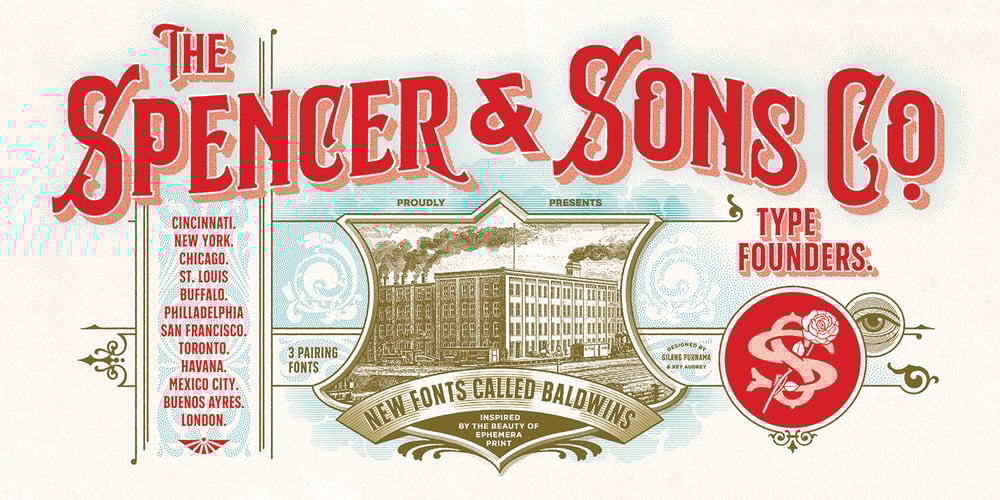
S&S Baldwins
S&S Baldwins font
S&S Baldwins Font Family was designed by Gilang Purnama Jaya and published by Spencer & Sons Co.. S&S Baldwins contains 3 styles and family package options. Baldwins was inspired by the beauty lettering of ephemera prints. Ideal for product names, packages, labels, old fashioned signs and everything with specific characteristics of past times.